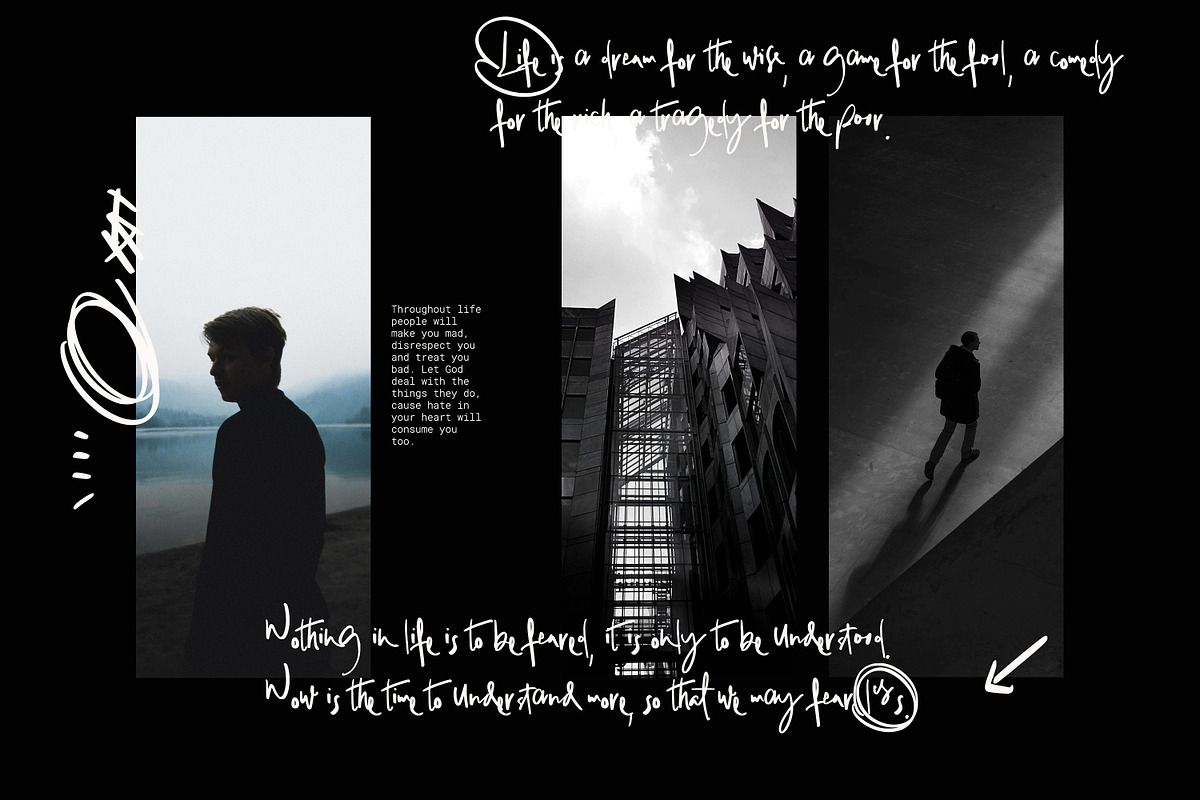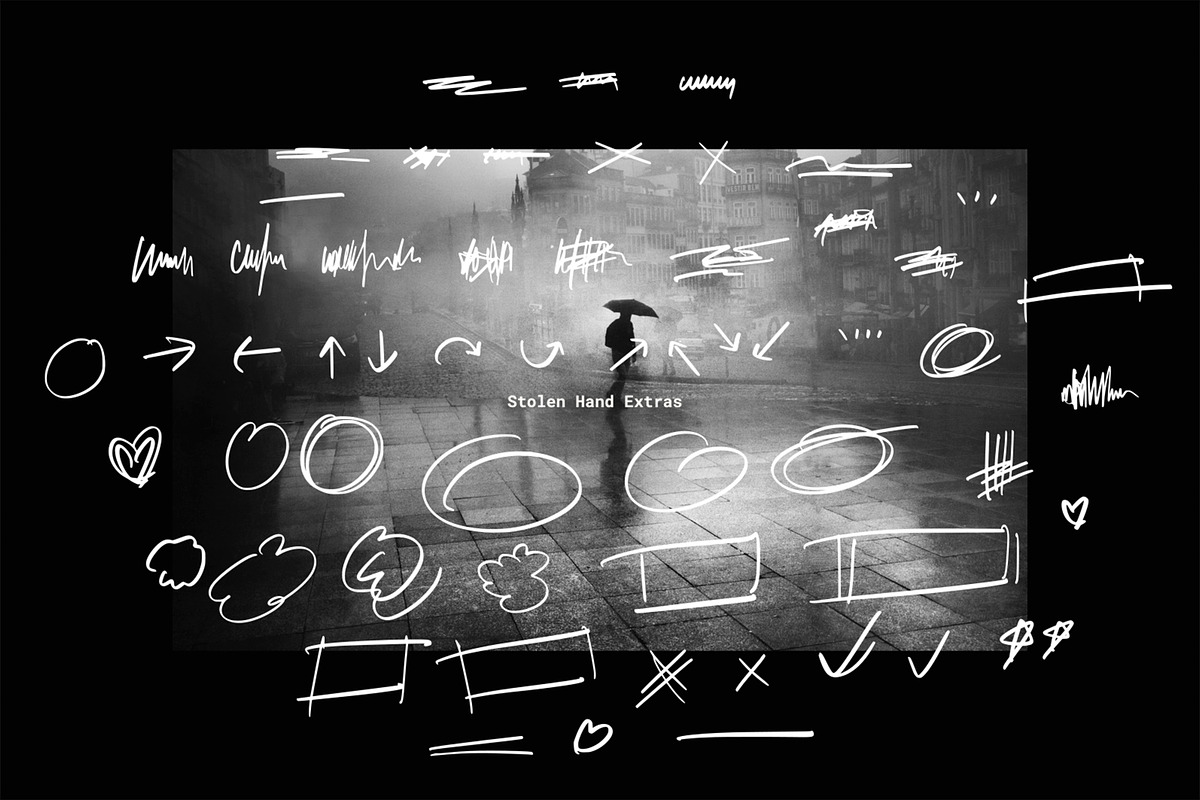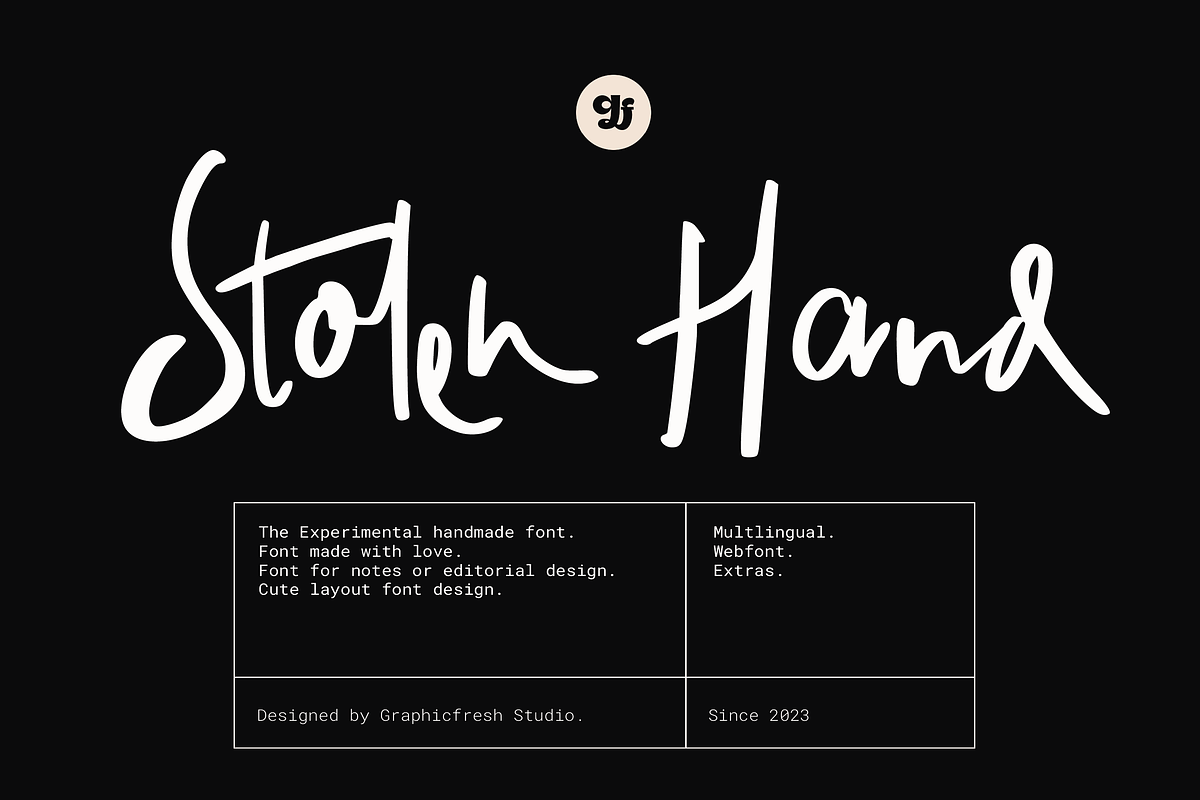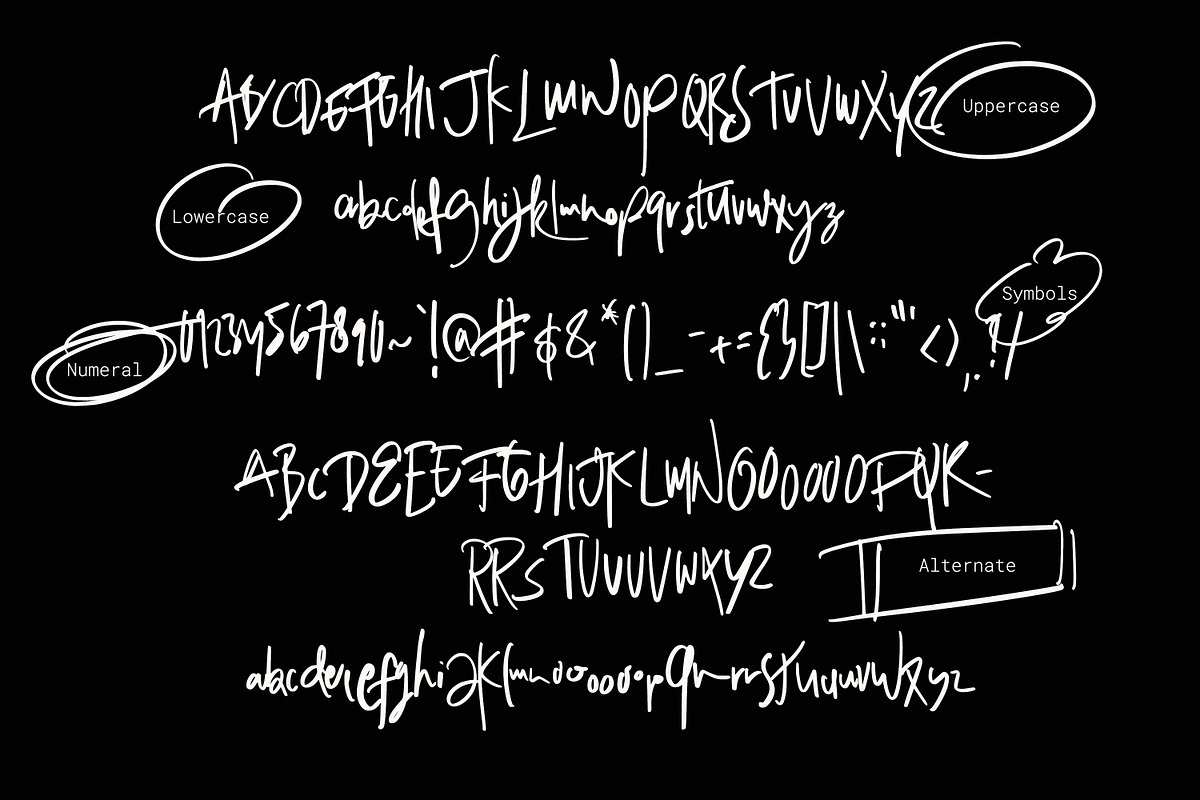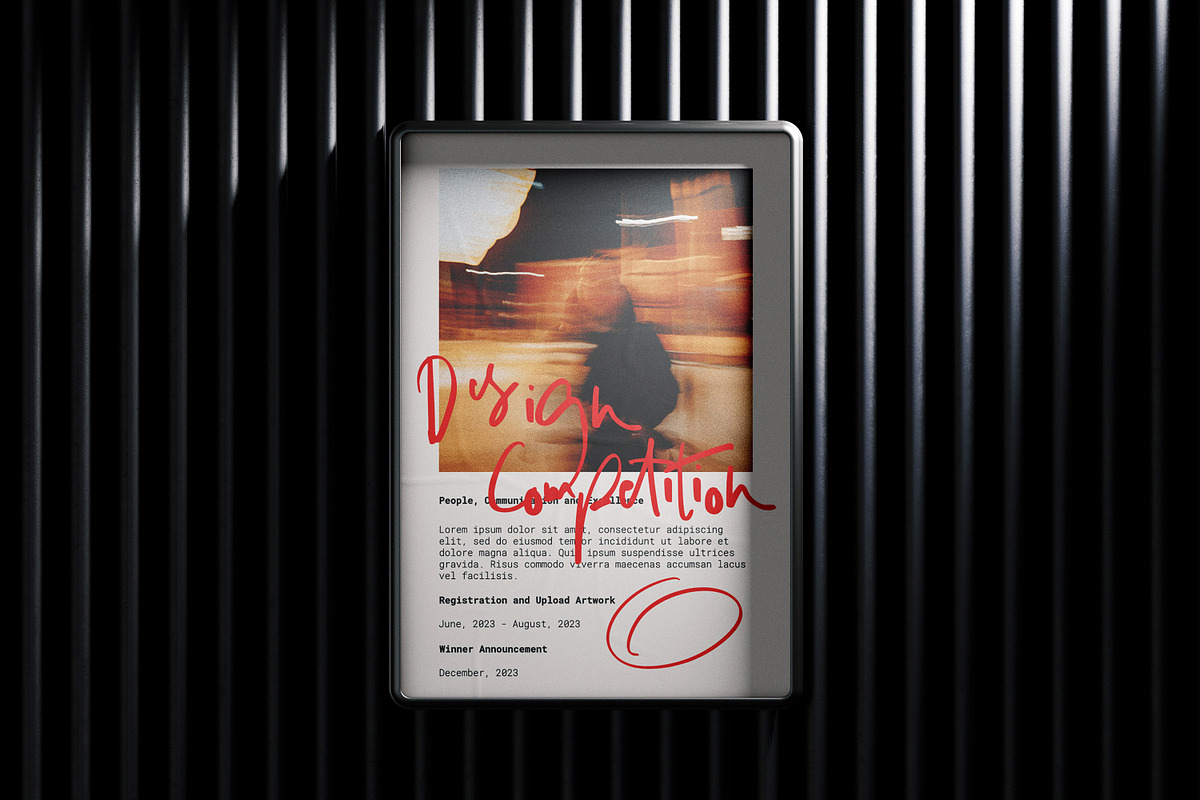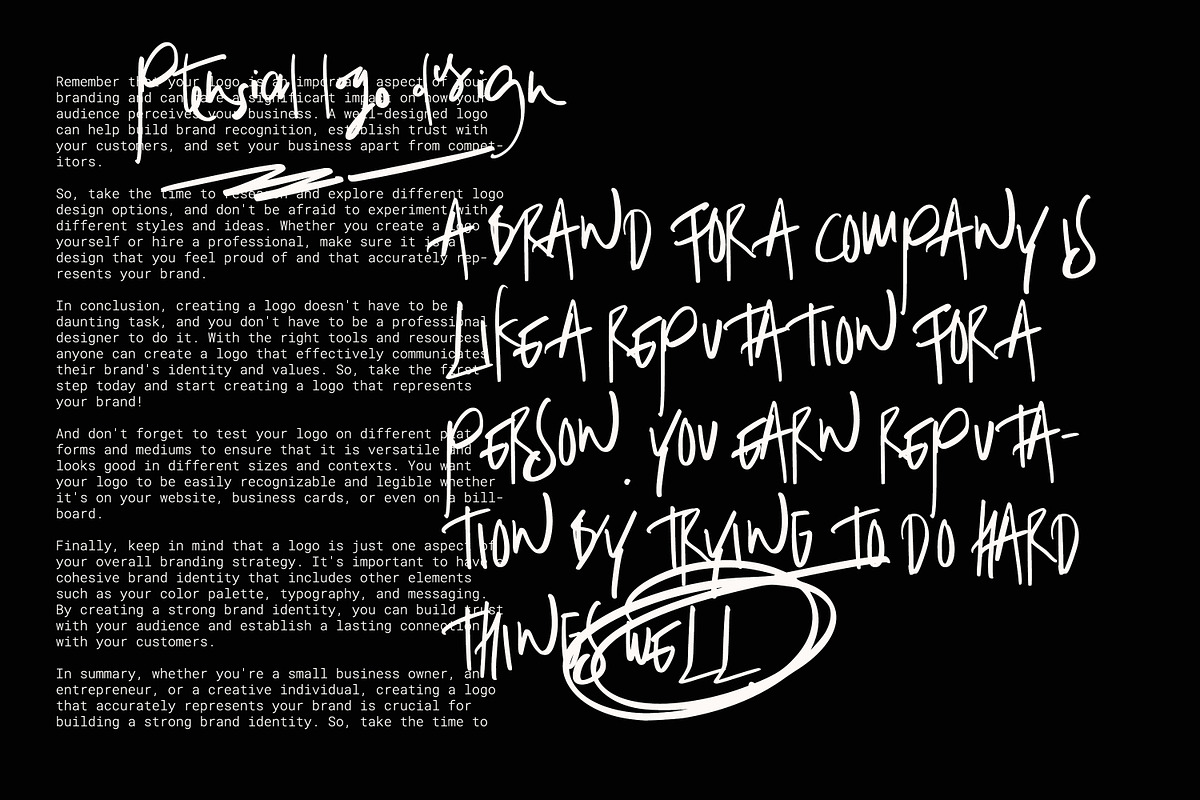
Stolen Hand - The Experimental Font
Stolen Hand – The Experimental Font
Introducing our new product – a modern and experimental font that combines the uniqueness of graffiti with the strong aesthetic of a handwritten style. Our font is perfect for those looking to create a bold statement with their design, whether it be for a magazine, branding, or any creative project. With its unconventional design, our font will make your work stand out from the crowd and add a touch of personality to your design. It’s modern edge and unique flair makes it a versatile choice for any project where you want to convey strength and creativity. So, try out our font and give your design the strong and distinctive look it deserves!